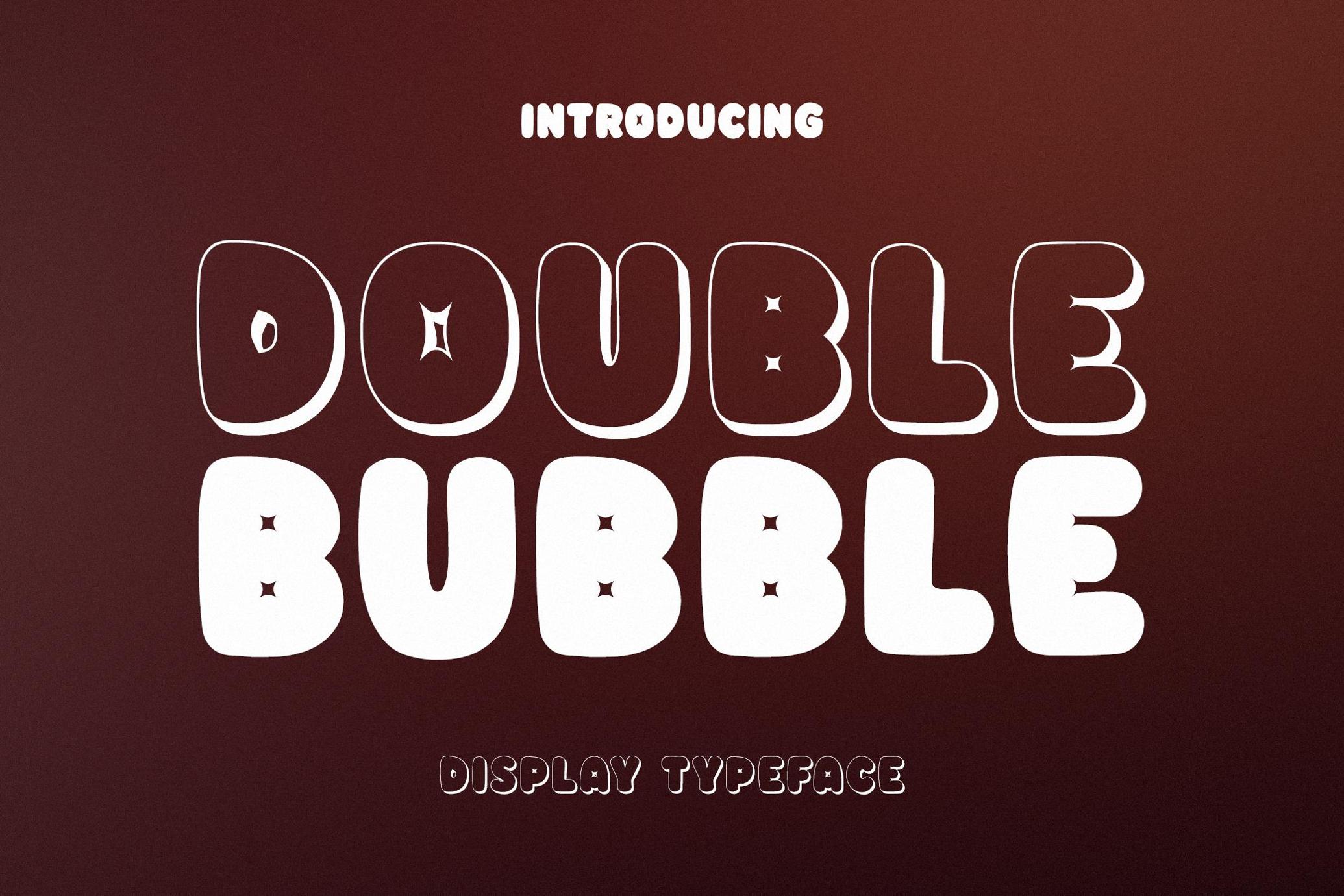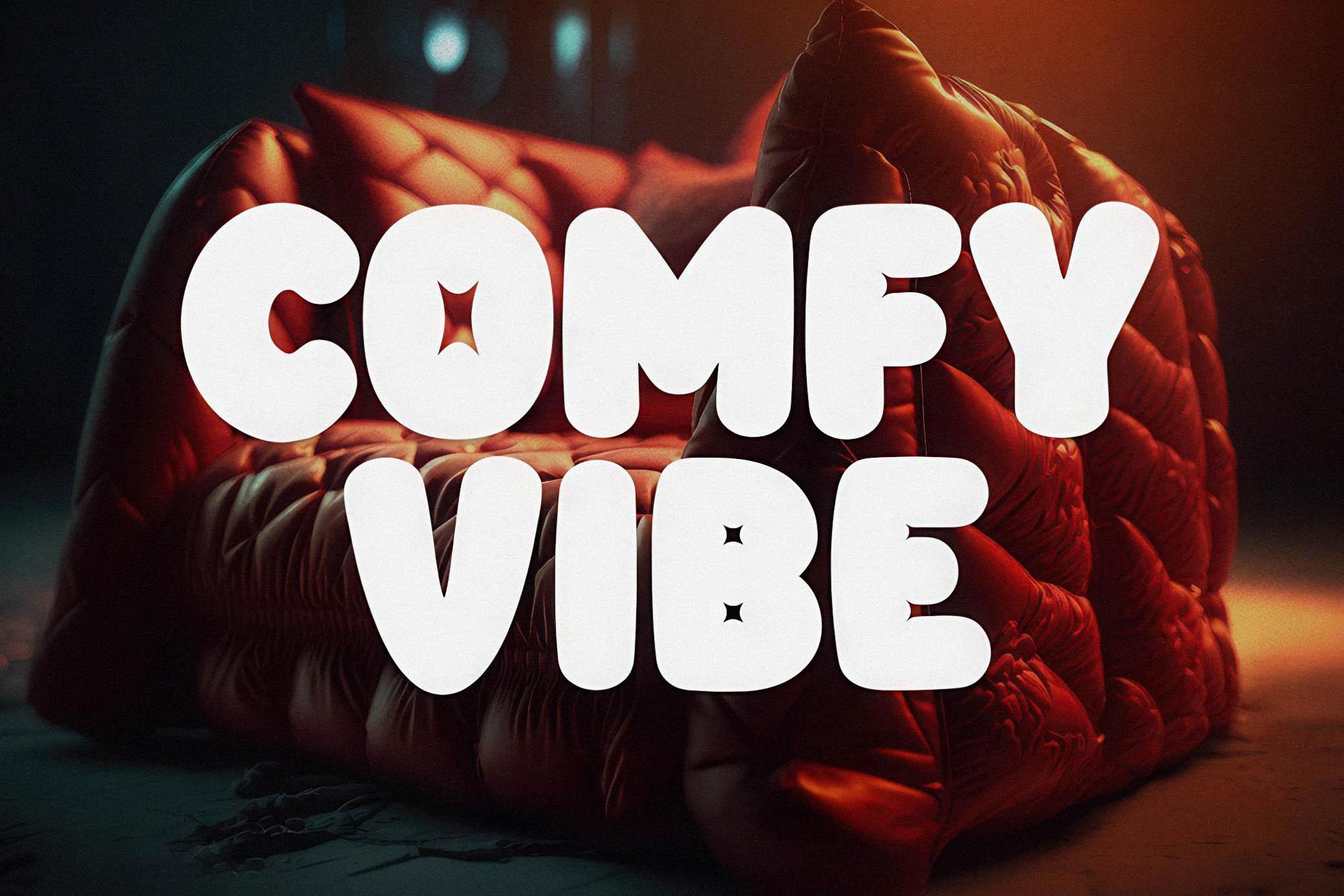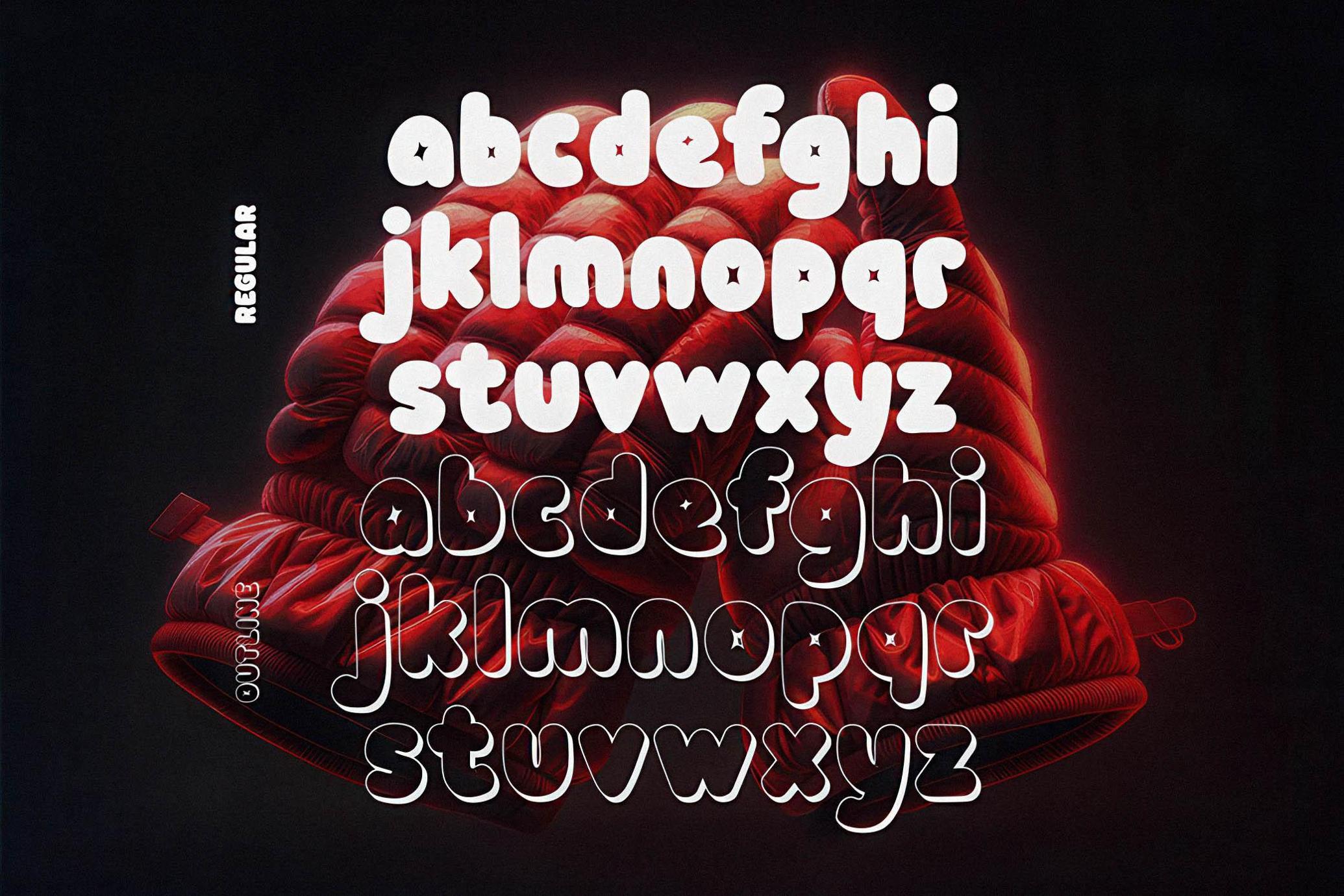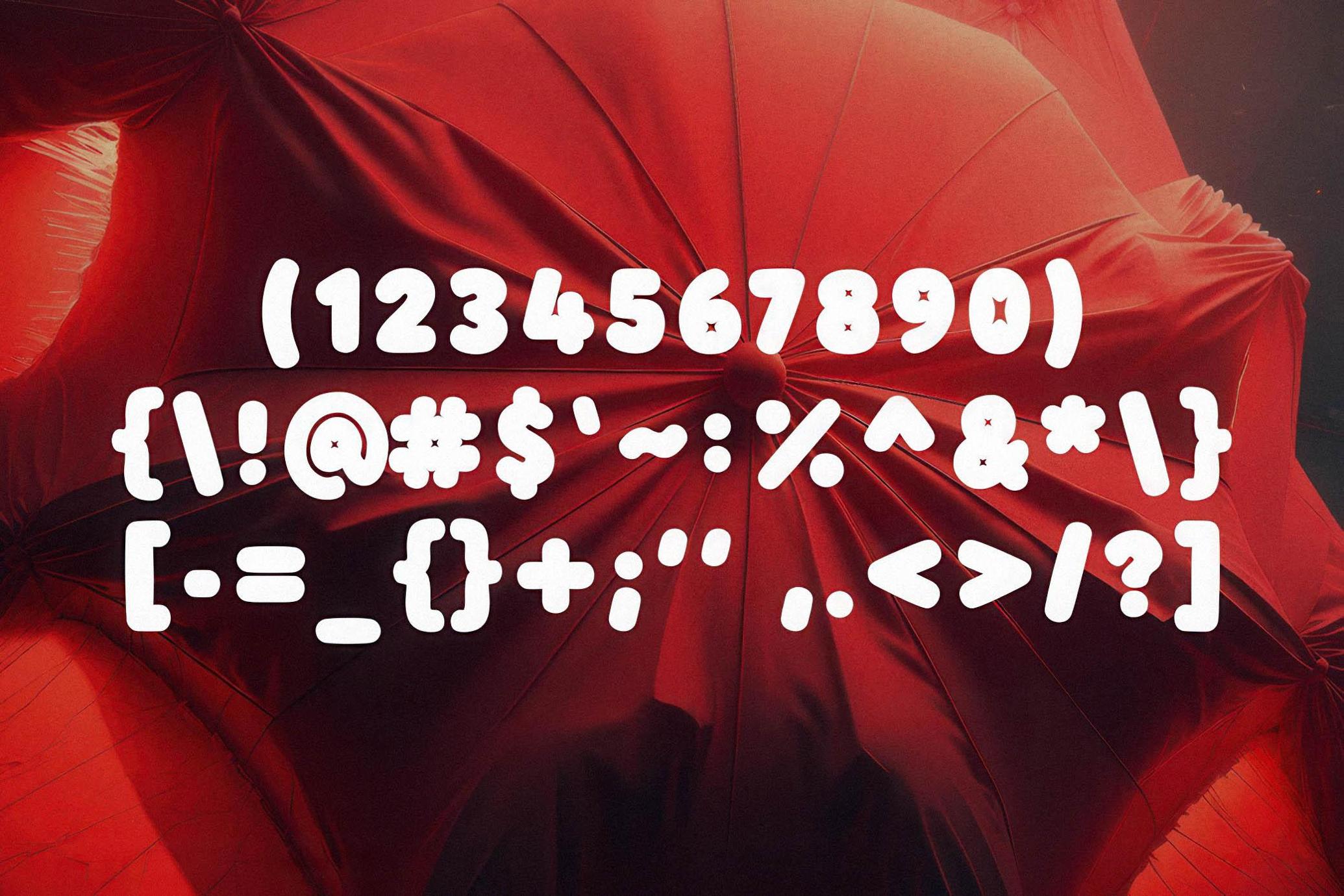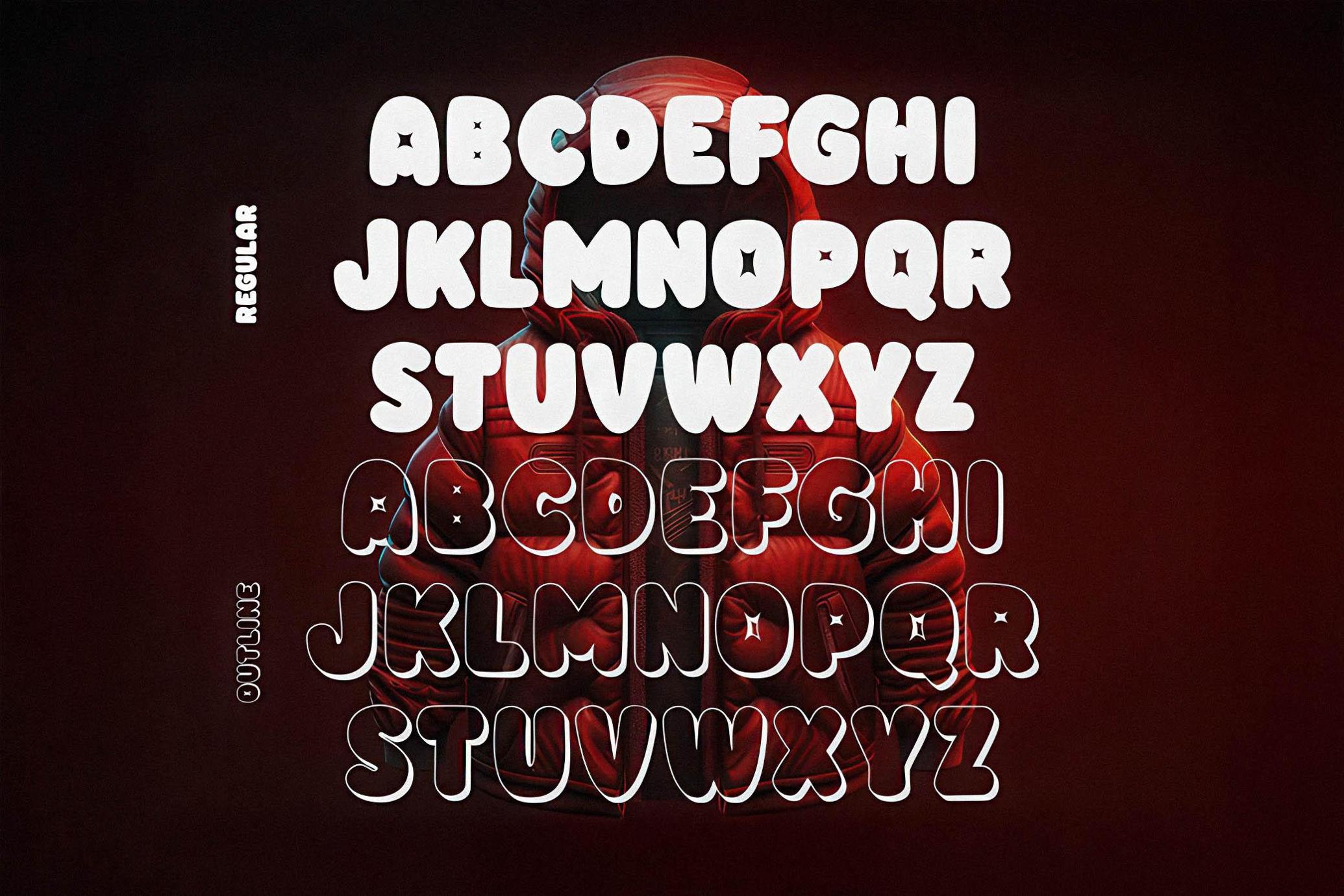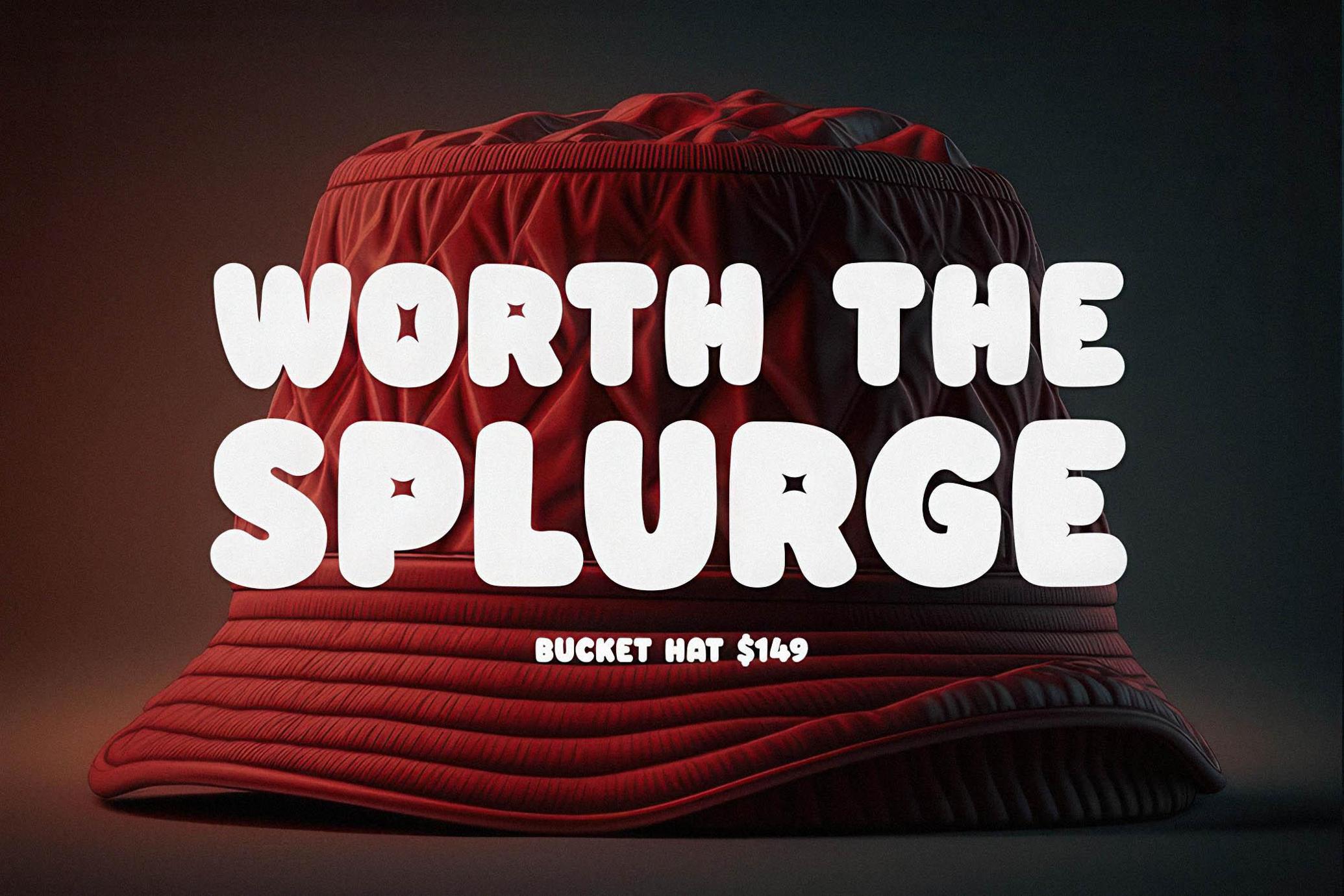
Double Bubble 3D Typeface
Double Bubble is a fluffy bubble display typeface. Each letter floats playfully on its own, ready to jump off the page at any moment. The mesmerizing text you can create with Double Bubble is bound to bring shimmering joy to the viewer.
Since this font comes with outline and a regular version, you can pair them together to create memorable designs. This font captures childhood imagination, bringing to mind images of bubble gum, bubble tea, and those comfortable puffy jacket you wore during winter. Whether you're creating a poster, a website, or a social media post, Double Bubble is sure to capture the attention of anyone who sees it.